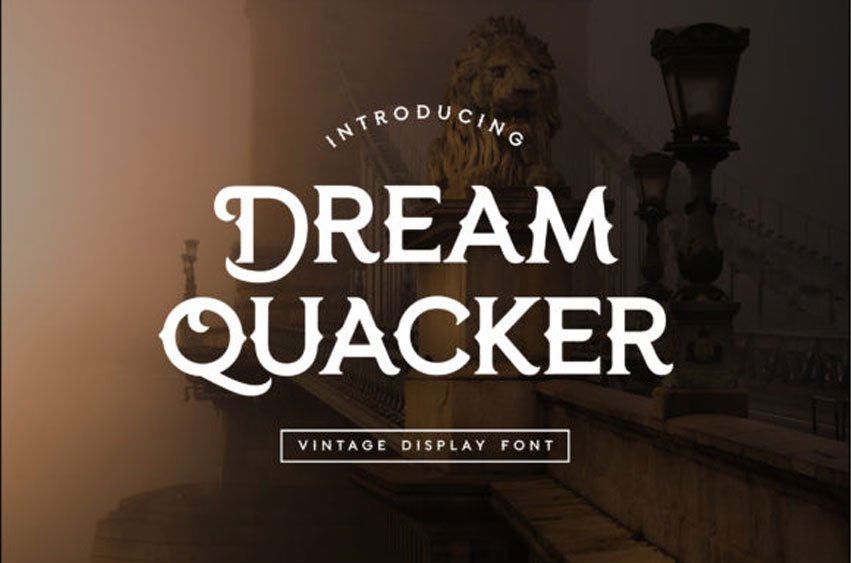
Dream Quacker Font
Dream Quacker Font is a bold and retro style display font.
This font reads as strong, confident, and dynamic and can add tons of nostalgic character to your designs.